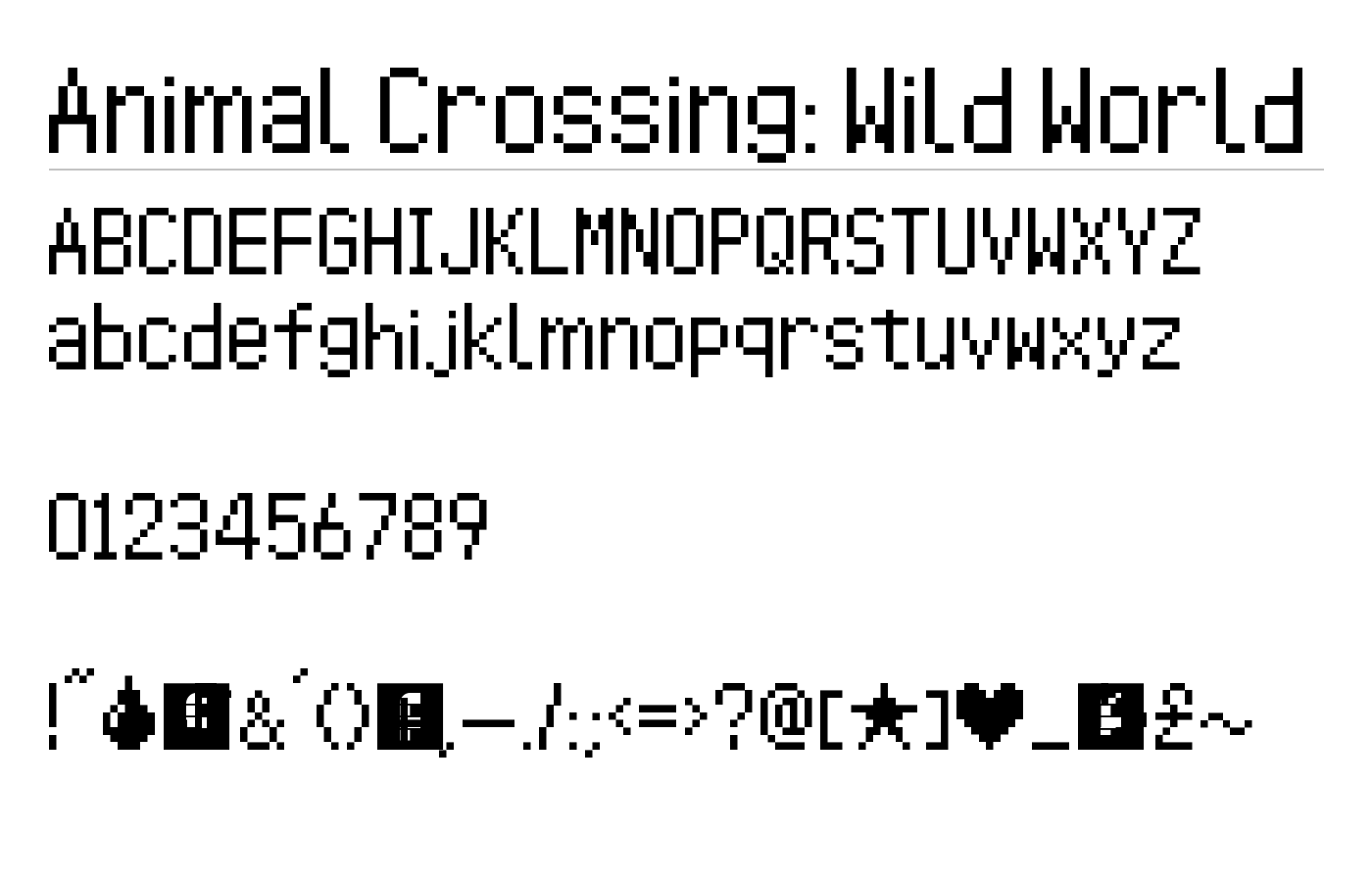
The Animal Crossing: Wild World font is a pixelated sans serif typeface with a clean, blocky appearance reminiscent of classic video game text. It features a monospaced, simple design with consistent stroke weight and a slightly tall x-height, offering a nostalgic yet legible style perfect for retro gaming or digital-themed projects. This font works well in pixel art, game interfaces, and playful digital branding where clarity and a vintage electronic vibe are desired.
Animal Crossing: Wild World Font
About Animal Crossing: Wild World Font
| Font family | Animal Crossing: Wild World Font |
| Designer | David Fens |